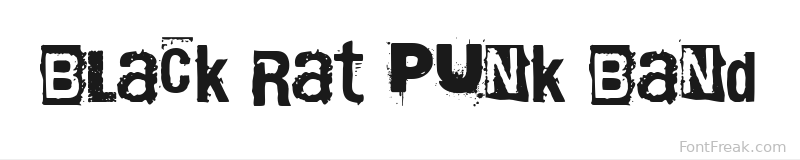
Black Rat Punk Band
The Black Rat Punk Band font by woodcutter Manero is a striking display typeface that embodies the raw, edgy spirit of punk culture. This font leans towards a decorative style, characterized by its bold, uneven strokes that evoke a sense of rebelliousness and energy. The stroke weight varies significantly, providing a dynamic contrast that catches the eye while maintaining legibility. The spacing between characters is deliberately loose, contributing to its informal, hand-crafted feel. The font also features distressed elements, which enhance its rebellious aesthetic and align perfectly with the punk theme.
Ideal for use in a variety of creative projects, the Black Rat Punk Band font excels in areas such as music event posters, band merchandise, and edgy branding for cafes or bars. Its unique style makes it an excellent choice for album covers, particularly for punk or alternative rock bands looking to capture their essence. Additionally, this font can elevate social media graphics aimed at a youthful audience, perfect for content creators wanting to stand out.
What truly sets this font apart is its ability to convey attitude and personality. The rough edges and vibrant character of the Black Rat Punk Band font make it a powerful tool for those looking to make a statement. Whether used for promotional materials or digital content, this font captures the essence of punk culture, making it a standout choice for any design project.